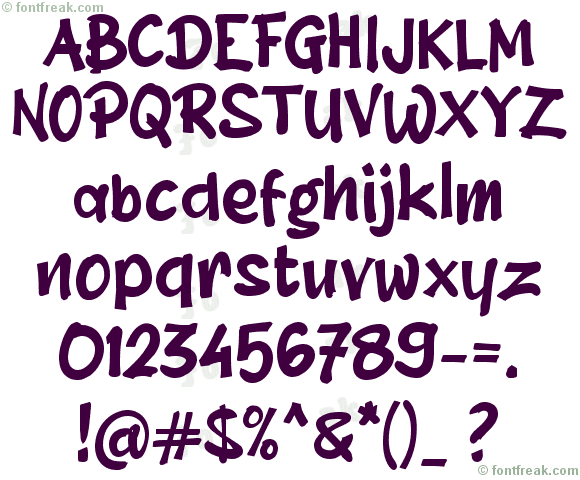
Anggota
About Anggota
Anggota, designed by Wahyu Eka Prasetya in 2020, is a striking display font that captures attention with its unique character and charm. This font falls into the category of decorative typefaces, boasting a playful and informal style that makes it an excellent choice for a variety of creative projects. The visual characteristics of Anggota feature a bold stroke weight, providing a strong presence, while its slightly irregular shapes introduce an element of whimsy. The spacing is well-balanced, allowing for easy readability while maintaining its artistic flair, making it suitable for both headlines and body text.
This font is particularly well-suited for use in wedding invitations, where its distinctive style can convey a sense of personality and celebration. It also shines in movie posters, offering a bold statement that can draw in an audience. Restaurant menus can benefit from Anggota’s unique aesthetic, adding a touch of creativity that reflects the establishment's vibe. Additionally, it is ideal for branding projects aimed at small businesses that wish to stand out in a crowded market, as well as for content creators looking to enhance their visual storytelling.
What sets Anggota apart is its ability to blend artistic elements with practical usability, ensuring that it not only looks good but also serves its purpose effectively. Its unique charm and playful design make it a standout choice for anyone looking to elevate their projects with a touch of creativity.